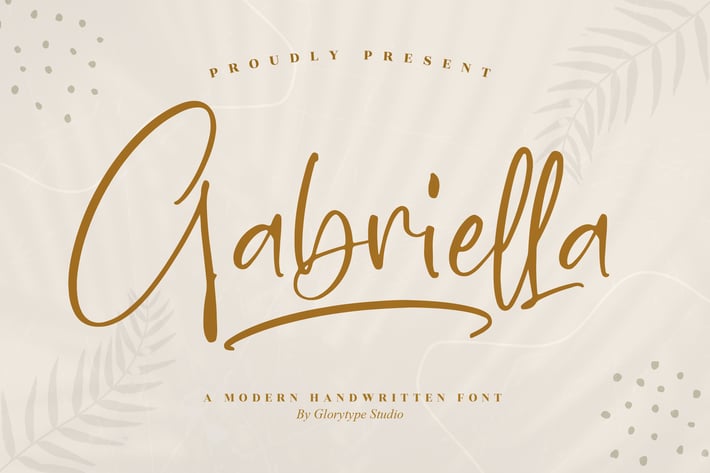
Gabriella Handwritten Font
Gabriella is a modern handwritten font that radiates charm and elegance. With its natural strokes and stylish curves, this font brings a personal yet professional touch to any design. Perfect for creatives who want to add warmth, sophistication, and personality to their digital and print projects.
+ Modern handwritten style with fluid strokes
+ Elegant and versatile character design
+ High readability with a stylish finish
+ Perfect balance of casual and professional look
+ Works seamlessly for both digital and print use
+ Branding & logos
+ Invitations & stationery
+ Social media graphics
+ Fashion & lifestyle projects
+ Posters & promotions
+ Personal creative projects
Add a touch of modern elegance with Gabriella — the handwritten font that blends charm with sophistication.